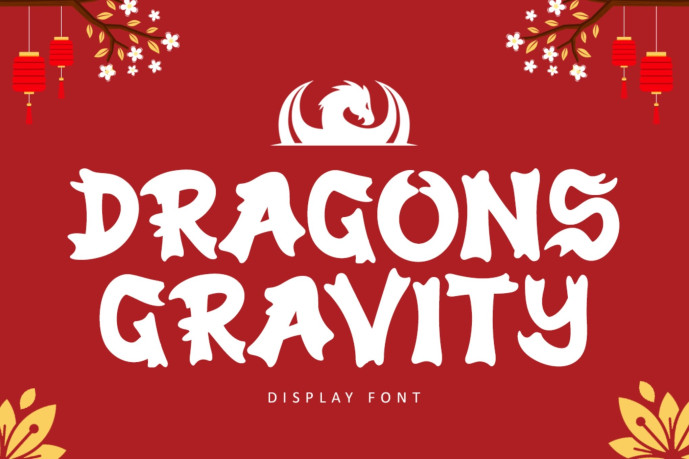
Dragons Gravity – Display Font
Designer: illushvara
Dragons Gravity – Display Font offers beautiful typographic harmony for a diversity of design projects, including logos & branding, social media posts, advertisements & product designs.